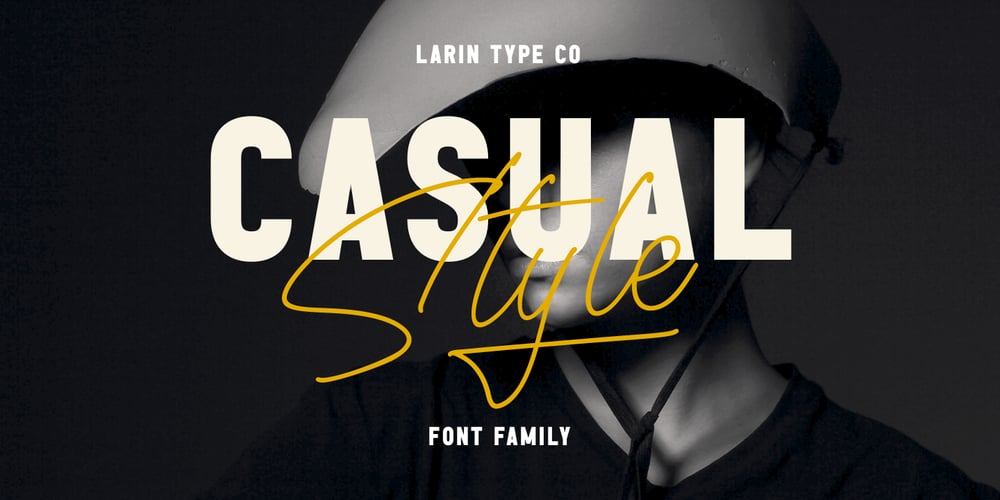
Casual Style Font Family was designed by Pavel Larin and published by Larin Type Co. Casual Style contains 4 styles and family package options. Casual Style This is an excellent font family that includes ( script, bold script, sans serif and outline sans serif). These are multi-purpose fonts and they are suitable for all kinds of design, from modern fashion projects to vintage logos, editorial designsand, headlines, advertising and much more. This font is easy to use and has OpenType features.